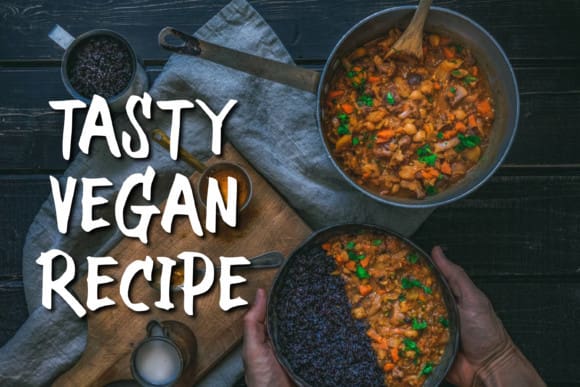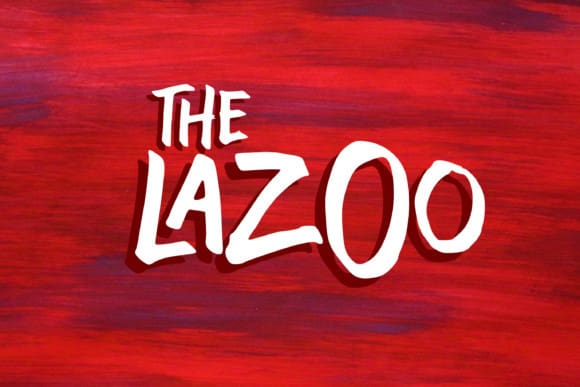
The Lazoo Font
The Lazoo Font is a casual, brushed display font. It can be used for posters, graphics designs, quotes, greeting cards, logos, and every other design which needs a rough look. This font is PUA encoded which means you can access all of the glyphs and swashes with ease!